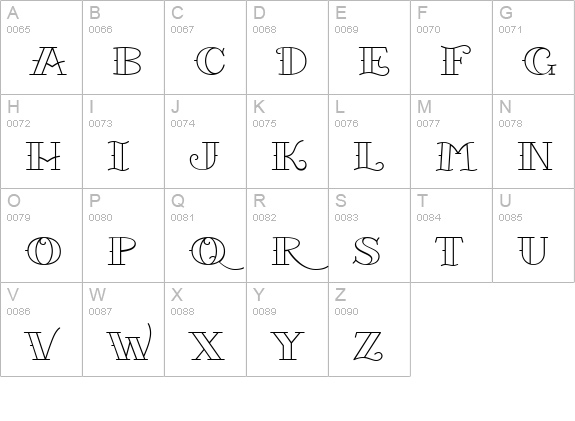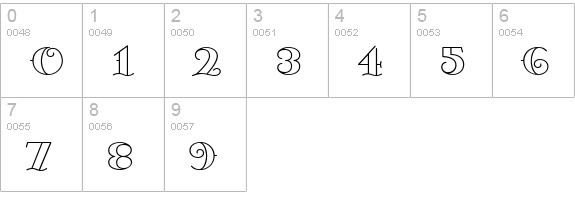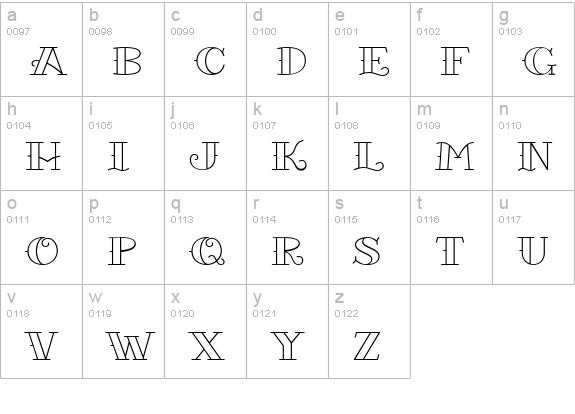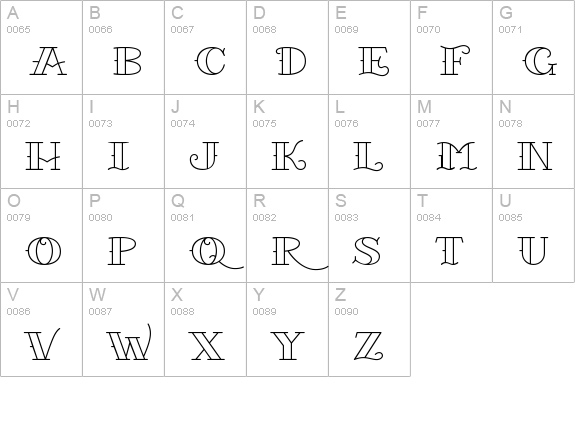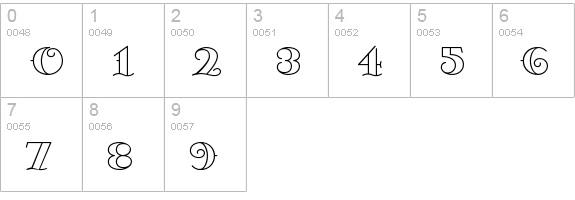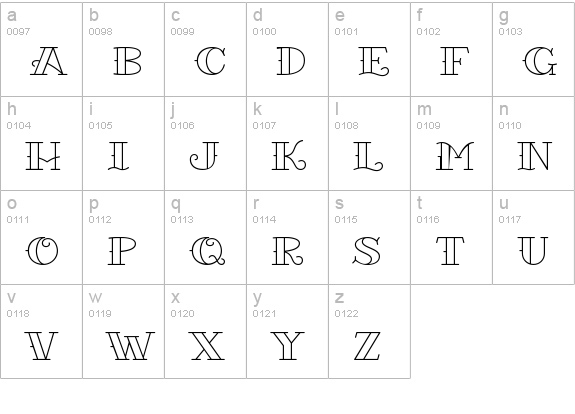
Sweet Rosie Font Details
Sweet Rosie is a charming and whimsical handwritten font that exudes warmth and friendliness. With its playful curves and elegant strokes, this font is perfect for adding a touch of sweetness to any project. Whether you're designing greeting cards, invitations, or branding materials, Sweet Rosie is sure to make a lasting impression. Best of all, Sweet Rosie is available for free download at FontsMarket.com. So go ahead and elevate your designs with this delightful font without breaking the bank. Download Sweet Rosie today and let your creativity shine!